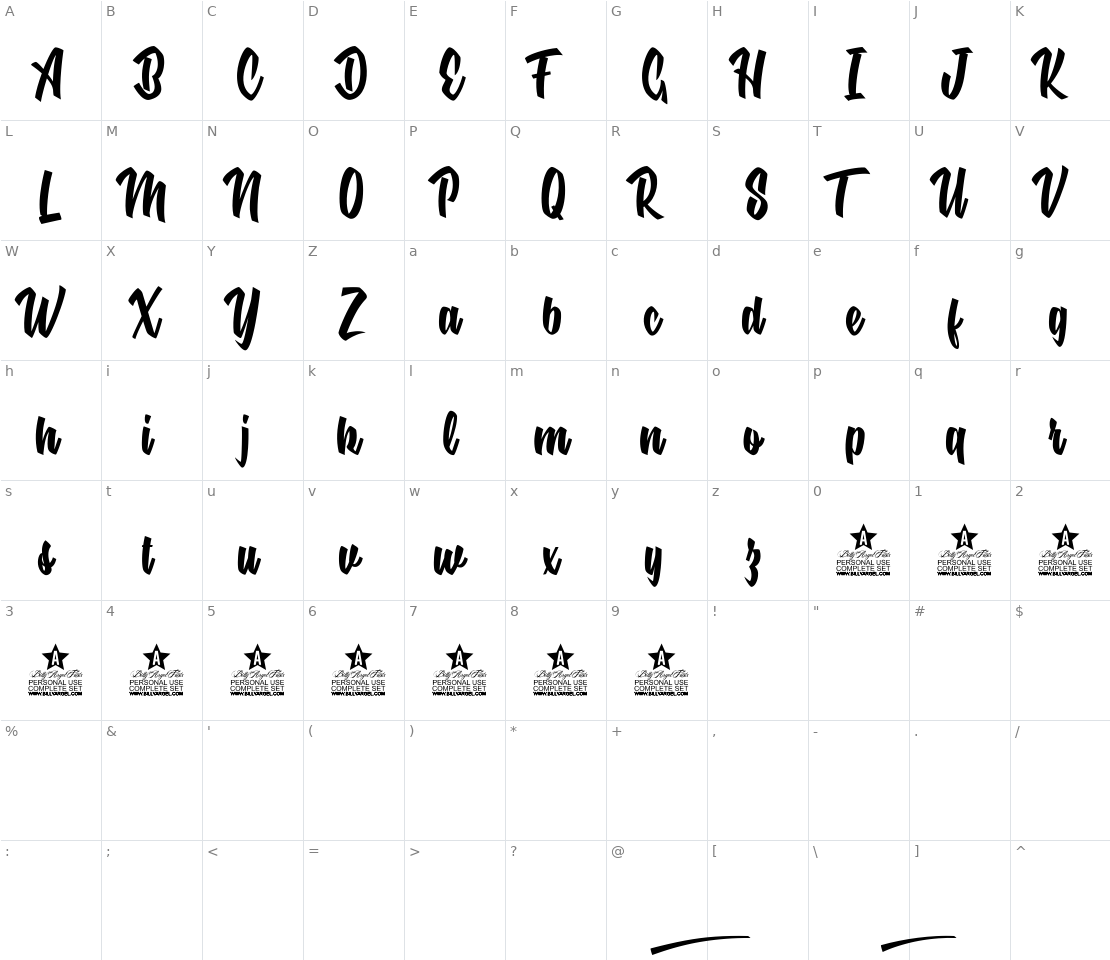
Nuclear Boots
Nuclear Boots is a thick, punchy brush face from Billy Argel with bold strokes that feel fast and physical, like lettering slapped down with a loaded brush in one confident pass. The letterforms carry a casual, energetic quality that works naturally for headlines, posters, event branding, and packaging where you want something that feels hand-painted but hits hard.